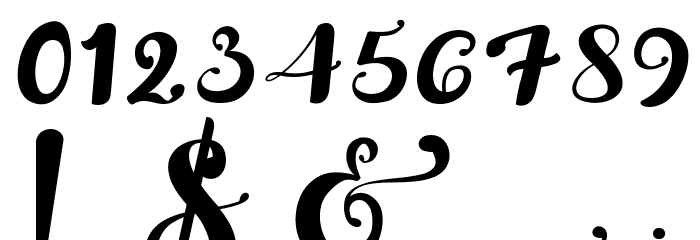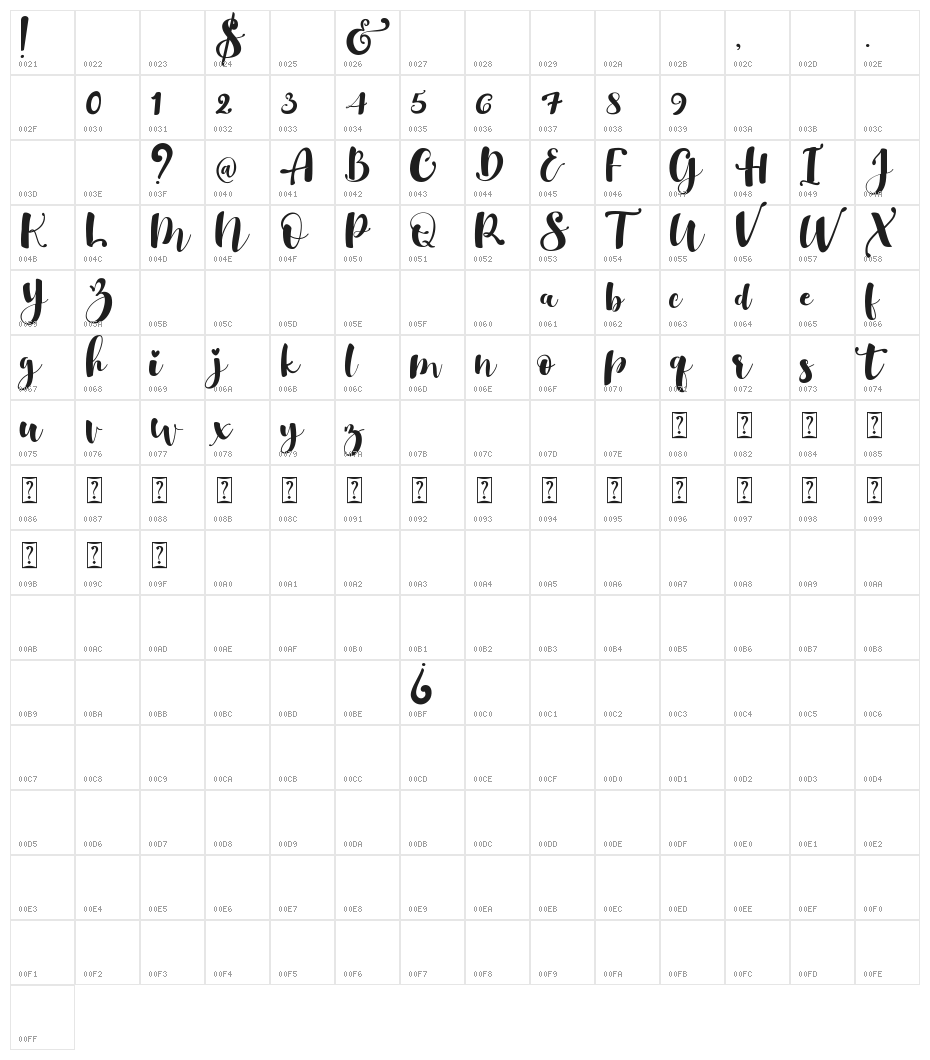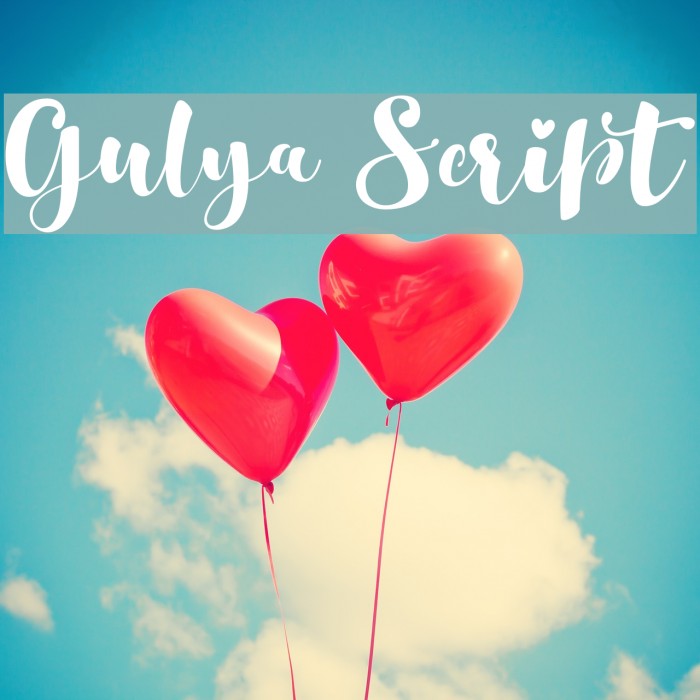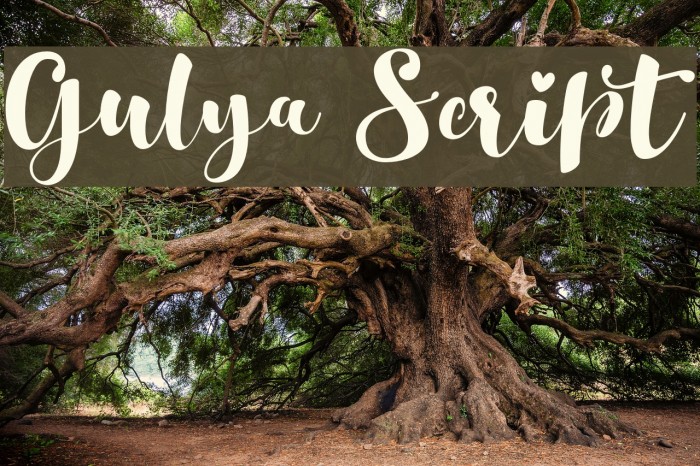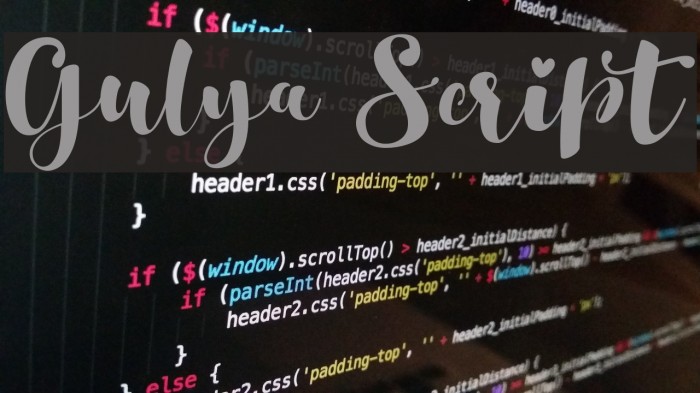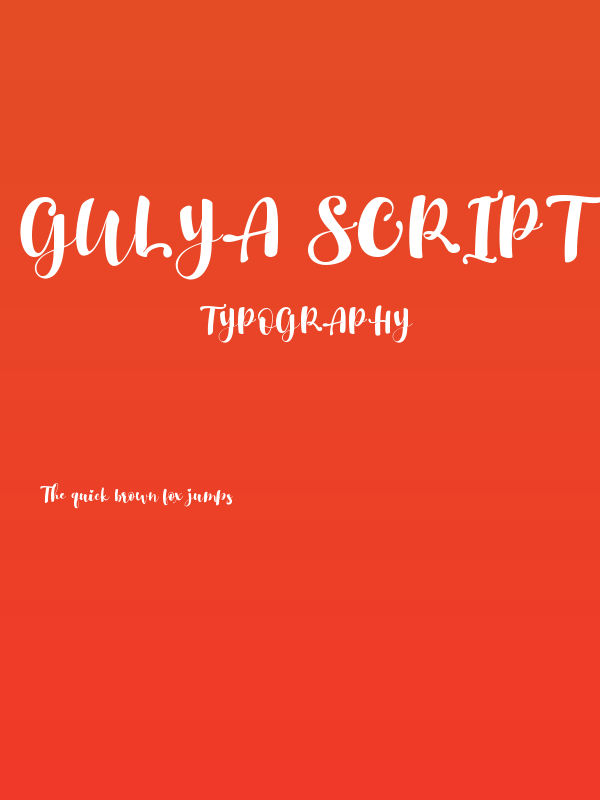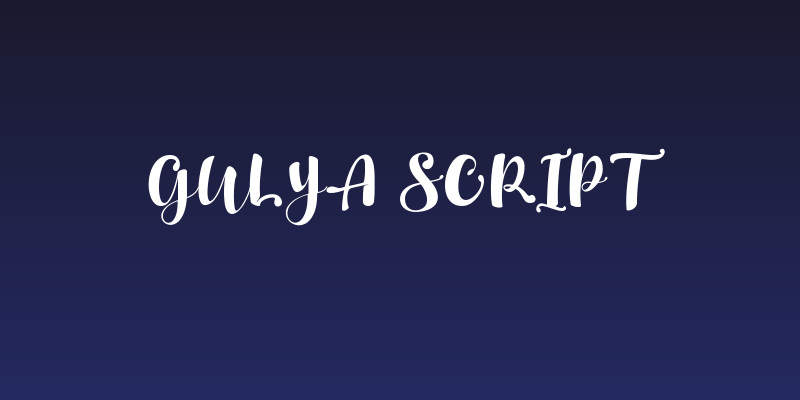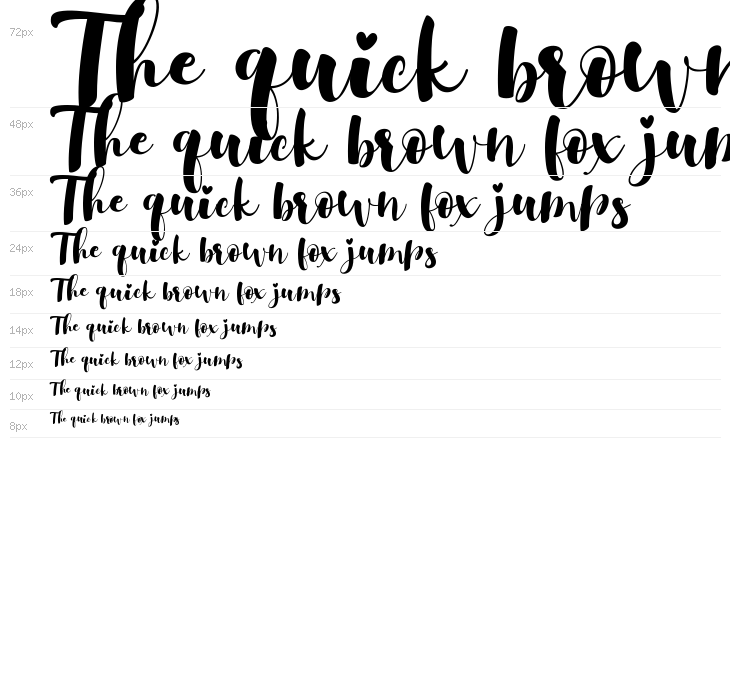
Gulya Script Font
This font exudes a playful and elegant charm, characterized by its flowing script style. The letters are interconnected with smooth, sweeping curves, giving it a handwritten appearance. The uppercase letters are bold and prominent, while the lowercase letters maintain a consistent flow, enhancing readability. The numbers and special characters are crafted with the same attention to detail, ensuring a cohesive look throughout. This font is ideal for projects that require a personal touch, such as invitations, greeting cards, and branding materials. Its decorative nature makes it stand out, yet it remains versatile enough for various design applications.
Use CaseLogos, Headlines, Invitations
Proposed ProjectsIdeal for invitations, greeting cards, branding materials, and decorative projects.